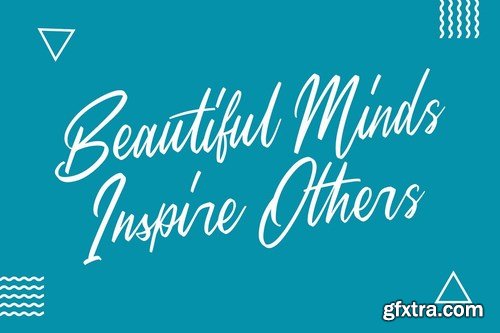
Hello everyone, we present a new font Sweet Morning Typeface is a beautiful writing theme with a charming curve and a very shaky bottom line It has a perfectly paired free marker font, and a bunch of very practical Ideal for logos, handwritten quotes, product packaging, headers, posters, merchandise, social media & greeting cards.